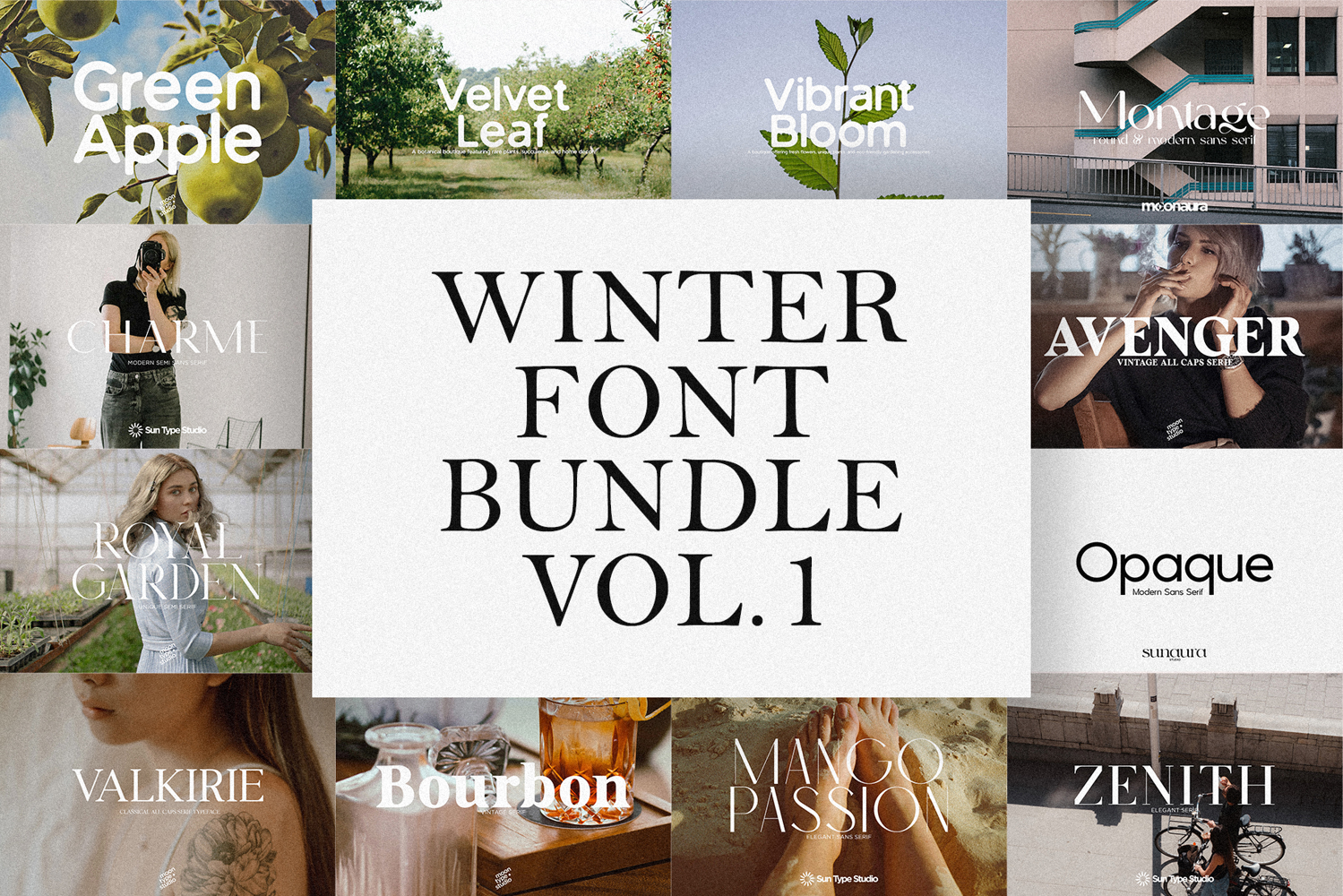
Winter Font Bundle Vol.1
Winter Font Bundle Vol. 1 is a thoughtfully curated collection of festive, cozy, and versatile typefaces created to elevate all your seasonal design projects. Featuring an enchanting mix of elegant serifs, whimsical scripts, charming hand-drawn styles, and bold winter-themed display fonts, this bundle captures the full spirit of the season - from snowy landscapes and warm gatherings to holiday magic and merry celebrations. Each typeface brings its own personality, offering endless creative possibilities for greeting cards, gift tags, invitations, branding, packaging, social media posts, and DIY crafts. Designed to inspire warmth and creativity, this bundle is the perfect toolkit for adding a heartfelt, wintry touch to any project.
Winter Font Bundle Vol.1